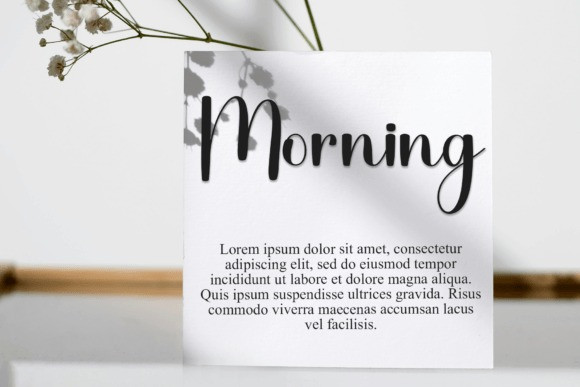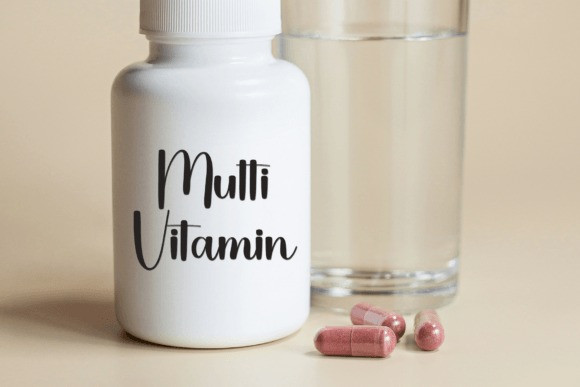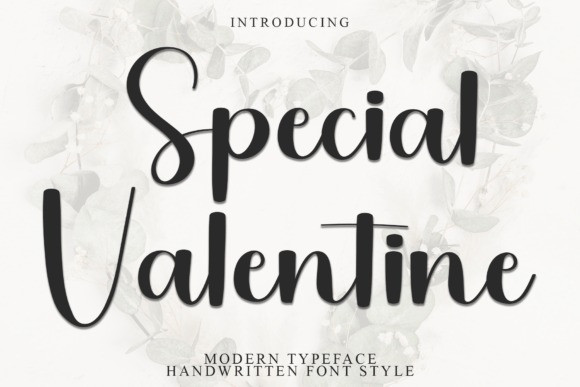
Special Valentine Font
Special Valentine Font is a beautiful script font with smooth, flowing letters. It looks elegant and romantic, perfect for making cards, wedding invites, or love notes. Its stylish curves add a personal, handwritten feel.